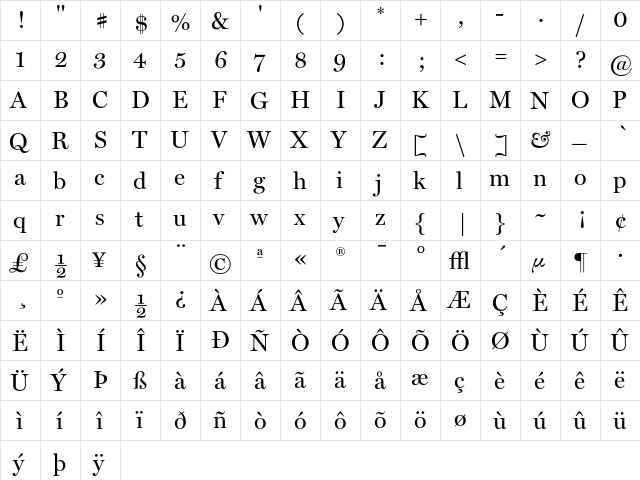
Miller Display
Design Context for Miller Typeface
Miller brings ornamental detail and strong personality to headlines and identities, where visual impact matters more than quiet functionality.
Font Pairing: Pair with a clean neutral sans-serif for body copy to let Miller's character lead without overwhelming the composition.
Pro Tip: Treat Miller as the centrepiece of your typographic hierarchy. One strong heading set in a decorative face can carry an entire layout.